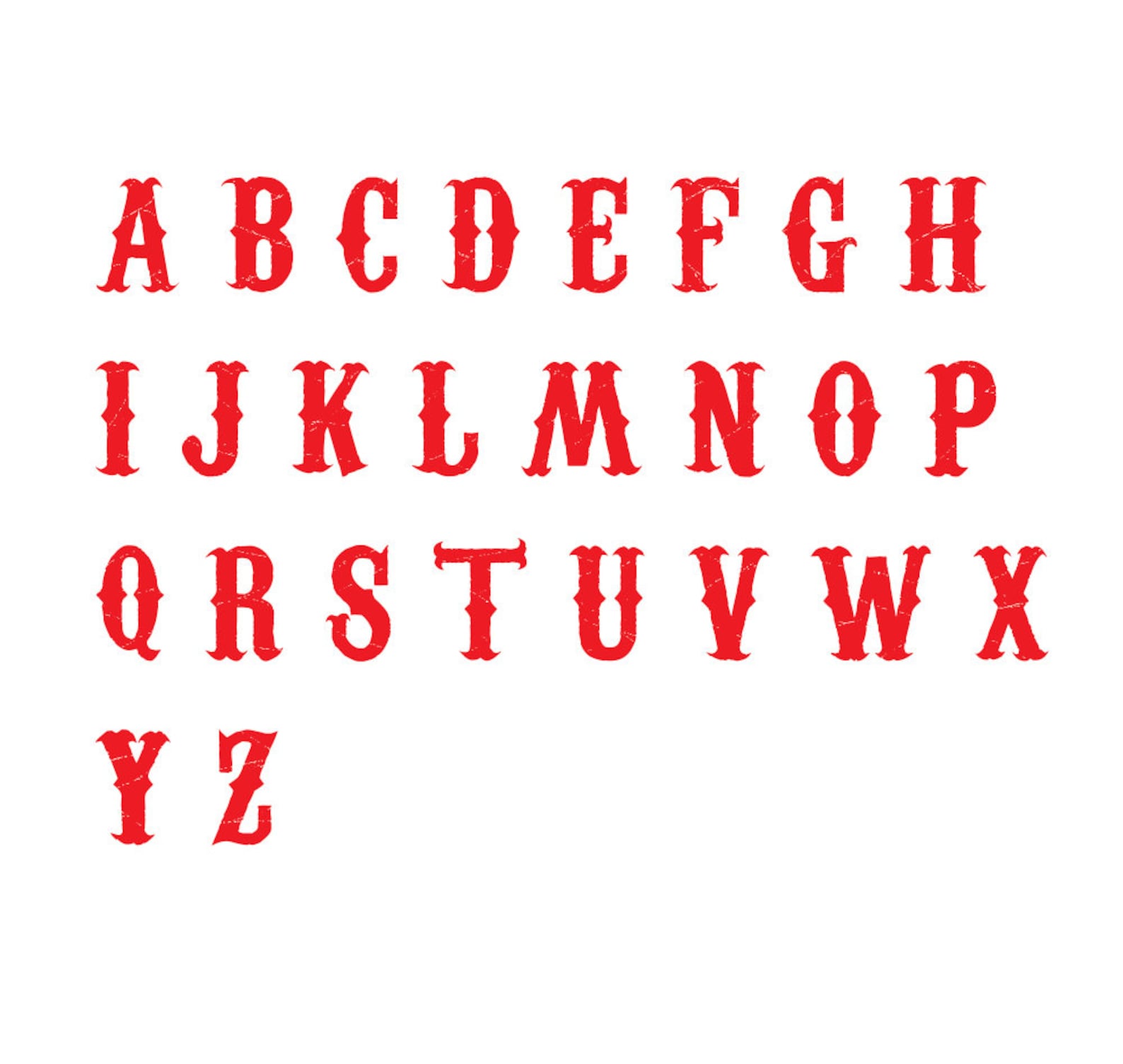
Carnivalee Freakshow Font
Carnivalee Freakshow Font - Web carnivalee freakshow is a high quality western display font that is designed by chris hansen and is available for free. This font is licensed for personal. Web download the carnevalee freakshow font, a free western font designed by christopher hansen.
Web carnivalee freakshow is a high quality western display font that is designed by chris hansen and is available for free. This font is licensed for personal. Web download the carnevalee freakshow font, a free western font designed by christopher hansen.